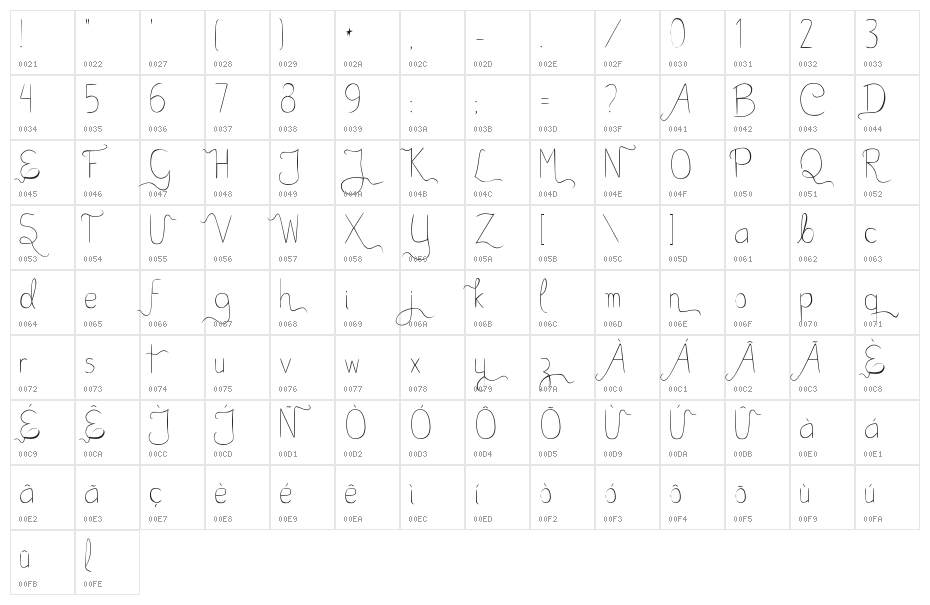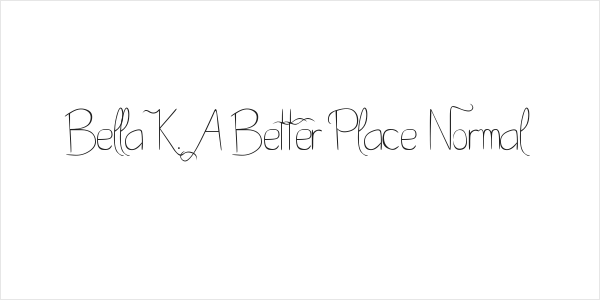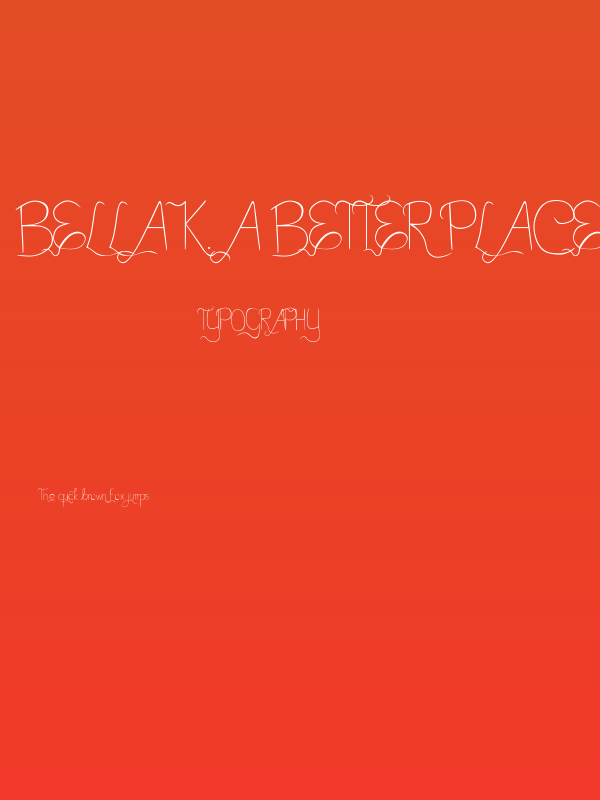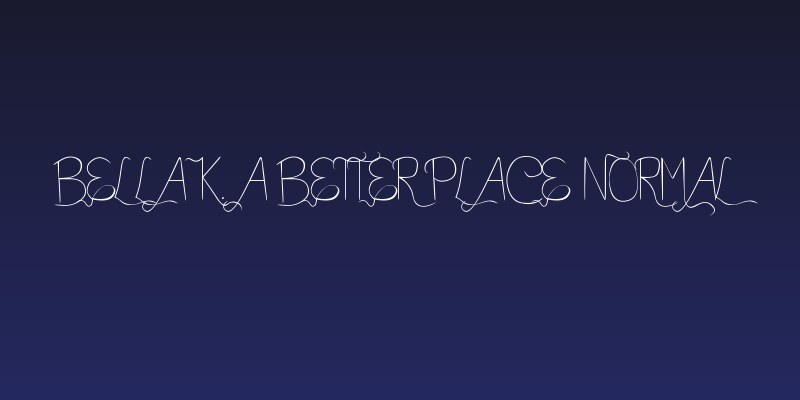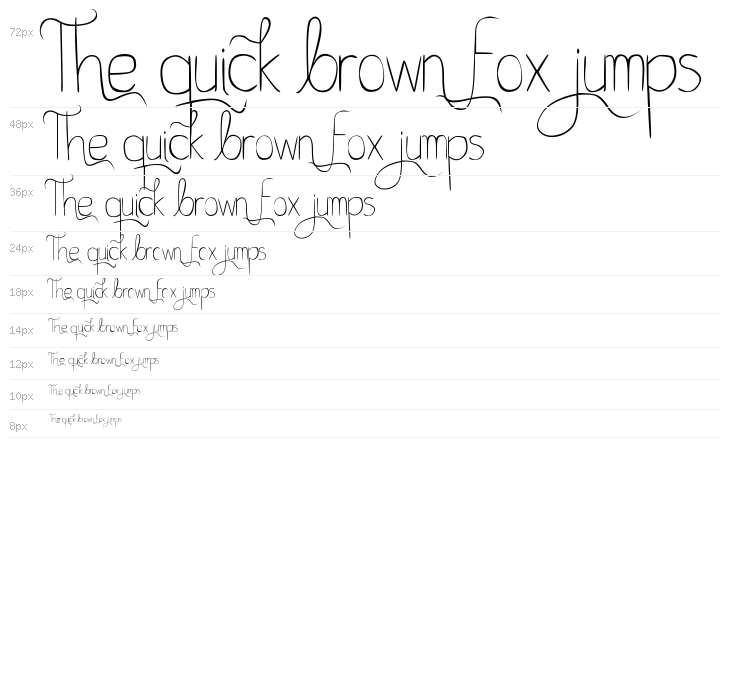
Bella K. A Better Place Normal Font
Bella K. A Better Place Normal Description
This font features an elegant and whimsical design, characterized by its flowing, cursive-like strokes and delicate lines. The uppercase letters exhibit a unique blend of traditional serif elements with modern, artistic flair, creating a sense of movement and grace. The lowercase letters maintain this fluidity, with some characters extending into elaborate swirls and loops, adding a decorative touch. The numerals are consistent with the overall style, offering a harmonious balance between readability and artistic expression. Special characters are thoughtfully integrated, enhancing the font's versatility. This font is ideal for projects that require a touch of sophistication and creativity.